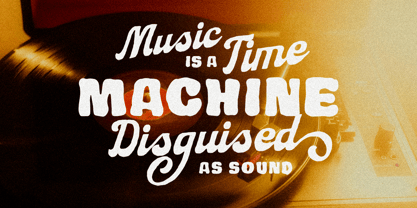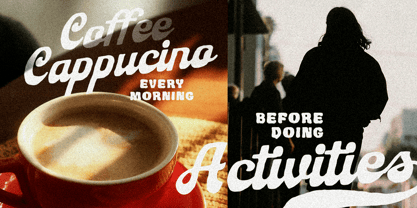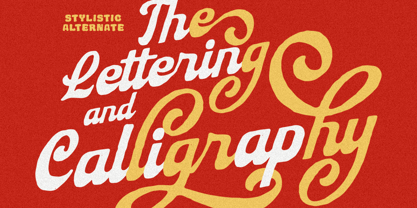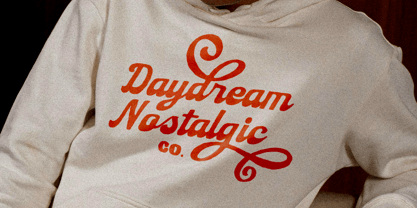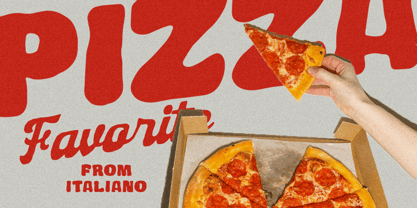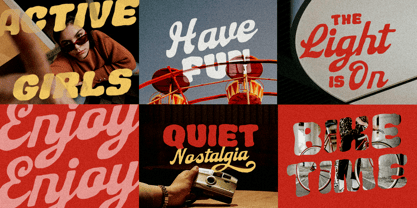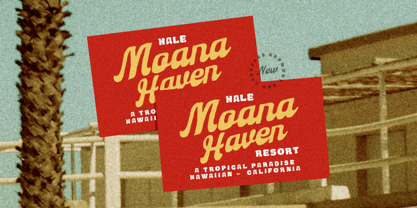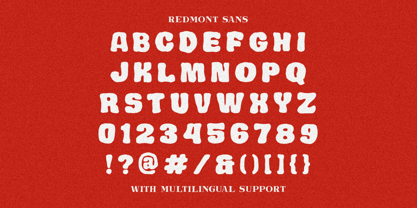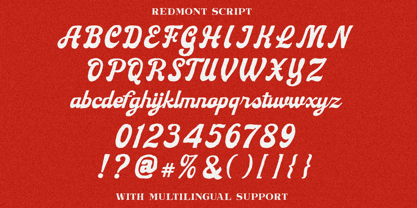
Redmont
by Letterhend
The Redmont Font Family was designed by Hendry Juanda and published by Letterhend. Redmont contains 2 styles and family package options. More about this family
Redmont font duo, this font feels like a sunny road trip in the 70s — hand-drawn, bold, and full of character. the script brings smooth, friendly curves while the sans adds balance and clarity, making the combo playful yet readable. It works great for branding that wants to feel warm, human, and a little nostalgic, perfect for logos, packaging, posters, signage, and creative headlines that need charm without losing function. Features : Uppercase & lowercase Numbers and punctuation Alternates & Ligatures Multilingual Support PUA encoded